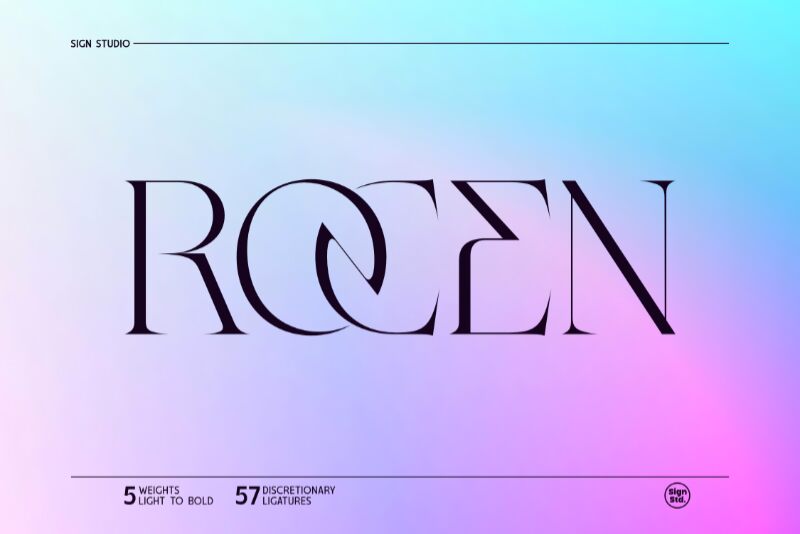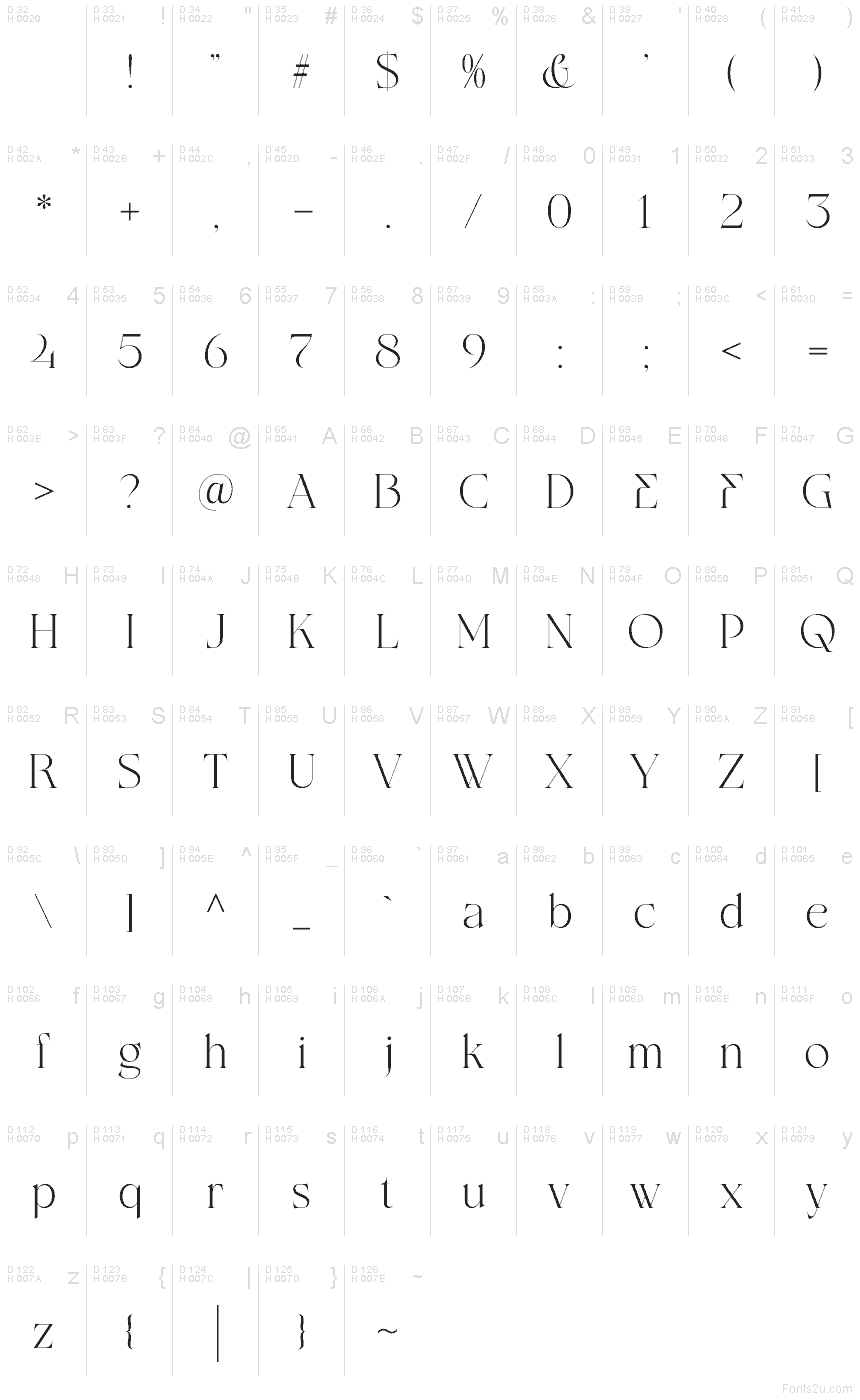
Rocen Regular
Rocen font by Sign Studio is a free serif typeface with razor‑thin hairlines, lithe curves, and confident verticals that feel made for the spotlight. Letters glide with a glossy, editorial polish—wide bowls, tapered strokes, and crisp cuts that leave plenty of white space to breathe. Set large, it delivers a suave, modern glamour without shouting.
Using Rocen, headlines and wordmarks snap into focus: fashion editorials, boutique logos, beauty packaging, magazine covers, wedding stationery, and hero banners all benefit from its poised rhythm and refined tension. This free font shines when you give it room; add a touch of tracking and pair with a quiet grotesk or geometric sans for body copy to let the serif sparkle.
Rocen font family by Sign Studio